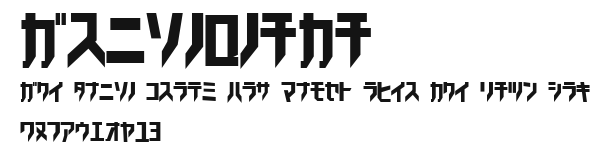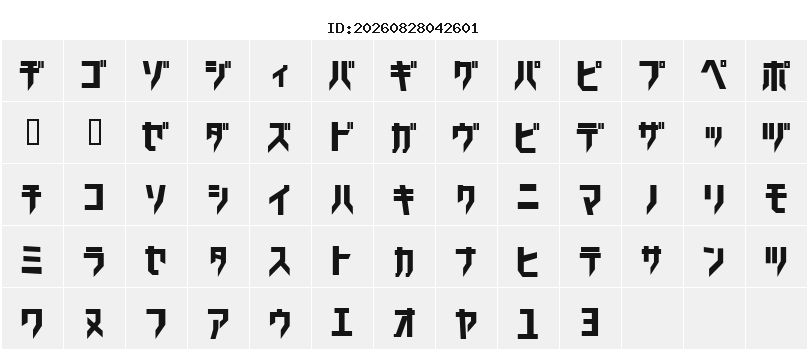
Trick_kata Preview
• Font Name: Trick_kata
• Full Font Name: Trick_kata
About Trick_kata.ttf
Trick_kata.ttf is a modern, elegant sans-serif font designed for ultimate readability and visual harmony. Perfect for branding, headlines, web design, and print materials.